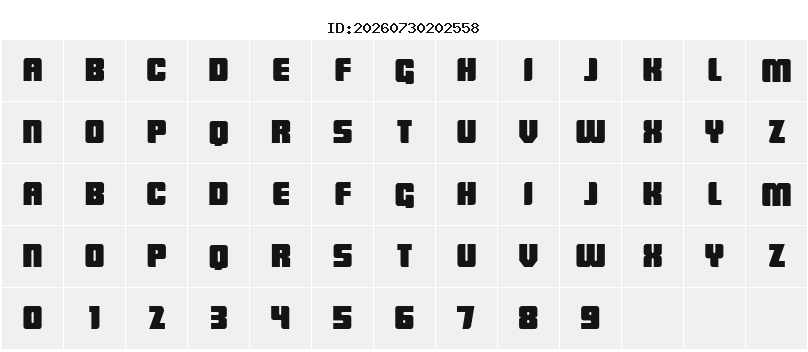
LowRider BB Preview
• Font Name: LowRider BB
• Full Font Name: LowRider BB
• Version: Macromedia Fontographer 4.1 1/14/04
• PostScript Name: LowRiderBB
• Character Count: 91
• Copyright: ©2004 Nate Piekos. www.blambot.com
About LowRider BB.ttf
LowRider BB.ttf is a modern, elegant sans-serif font designed for ultimate readability and visual harmony. Perfect for branding, headlines, web design, and print materials.